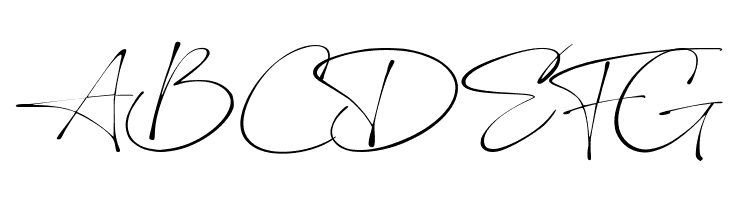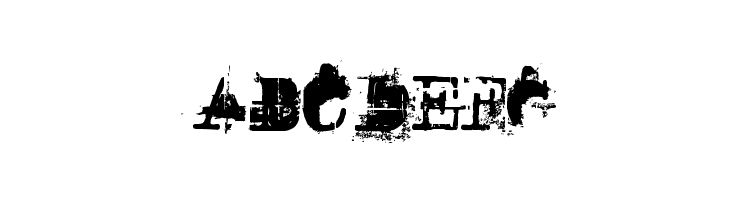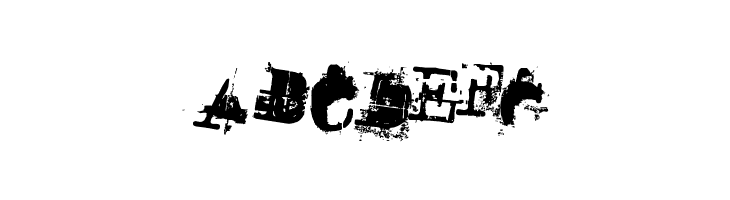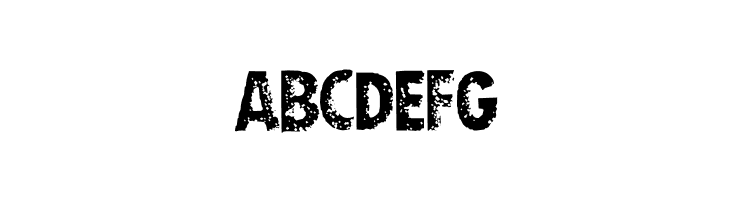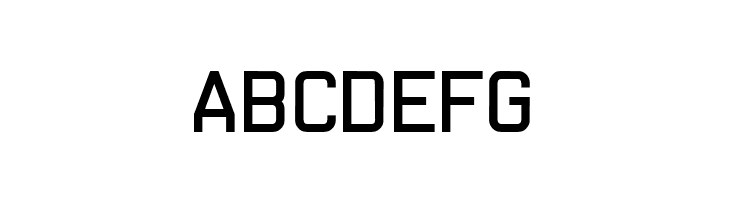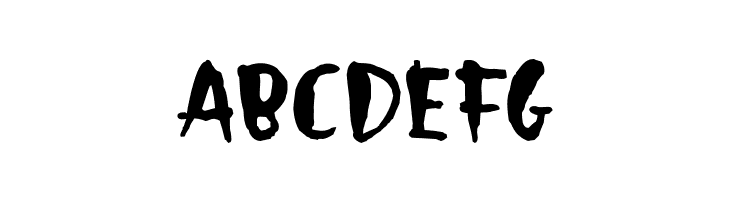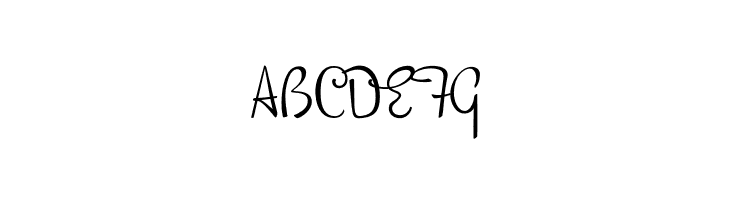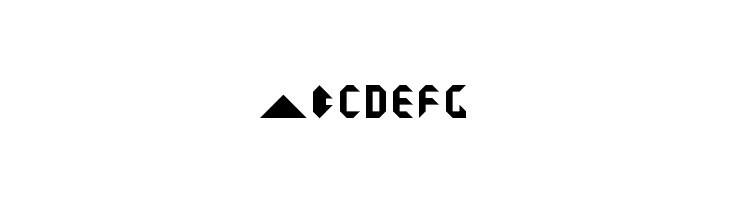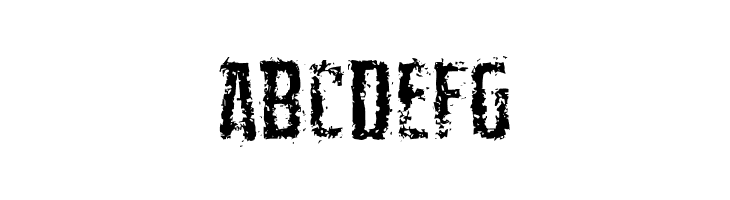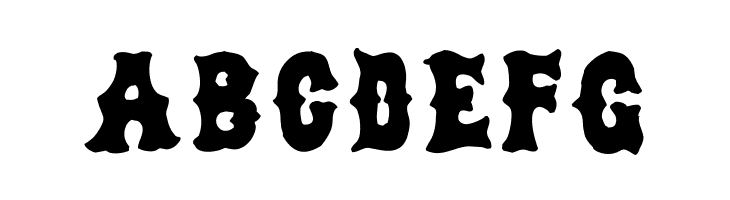
A bold, modern font with tall, narrow characters and a strong visual impact.
A bold, geometric outline font with a modern, neon-like appearance.
A distressed, grunge-style font with rough edges and a textured appearance.
A bold, flowing script font with a modern and decorative style.
A lively, expressive script font with bold, flowing strokes.
A bold, geometric font with a blocky and modern design.
A bold, hand-drawn font with a playful and rustic style.
A bold, geometric font with a futuristic and digital aesthetic.
A bold, playful font with rounded edges and a retro vibe.
A bold, geometric font with a modernist design and strong emphasis on lines.
A modern, geometric font with a futuristic and sleek design.
A whimsical and artistic font with elongated ascenders and descenders.
A bold, distressed font with a grunge, textured appearance.
A bold, rugged font with a distressed, hand-crafted appearance.
A bold, geometric font with rounded edges and a playful style.
A playful, pixelated font with a retro digital aesthetic.
A distressed, grunge-style font with a bold, textured appearance.
A distressed, grunge-style font with a rough, textured appearance.
A bold, geometric font with a futuristic and enclosed design.
A whimsical and elegant script font with flowing, interconnected letterforms.
A playful, high-contrast decorative font with a vintage, whimsical style.
A whimsical, cursive font with an artistic and flowing handwriting style.
A bold, distressed font with a vintage, rugged appearance.
A futuristic, geometric font with bold, rounded letterforms and uniform stroke width.
A bold, playful font with rounded edges and a modern, quirky style.
A whimsical, hand-drawn font with elongated strokes and playful curves.